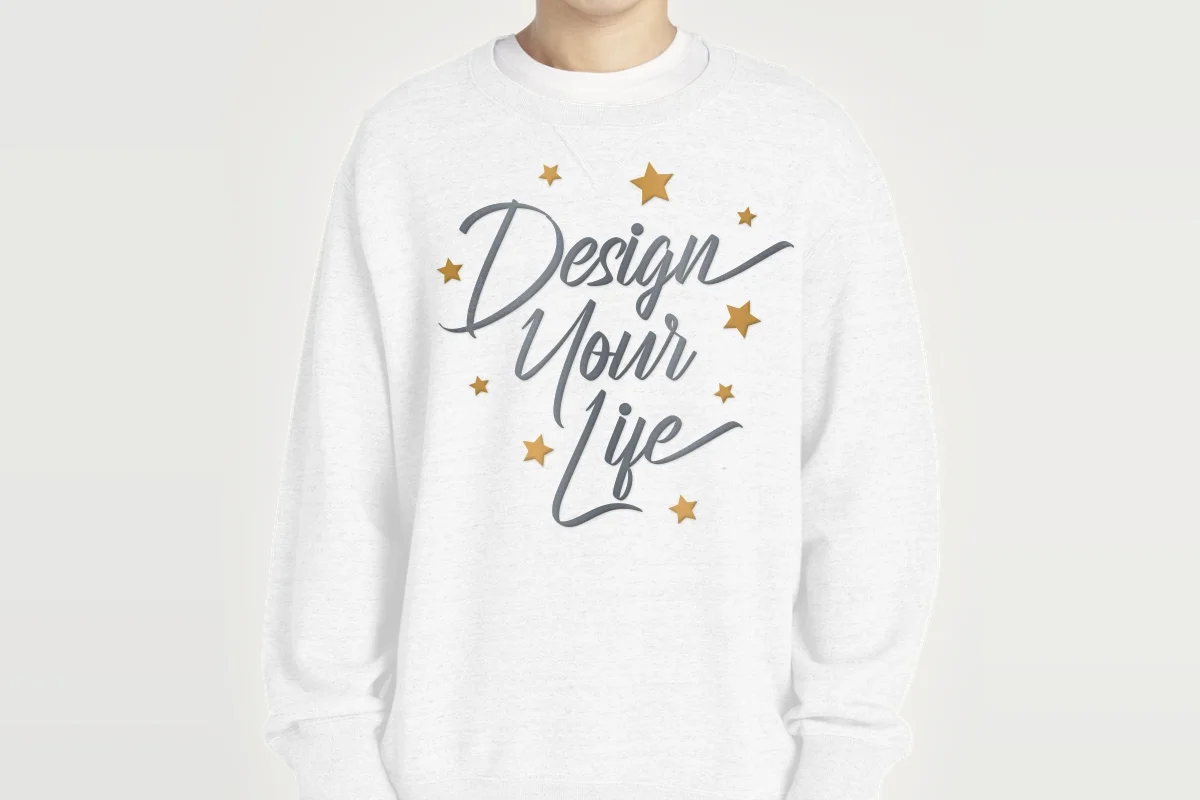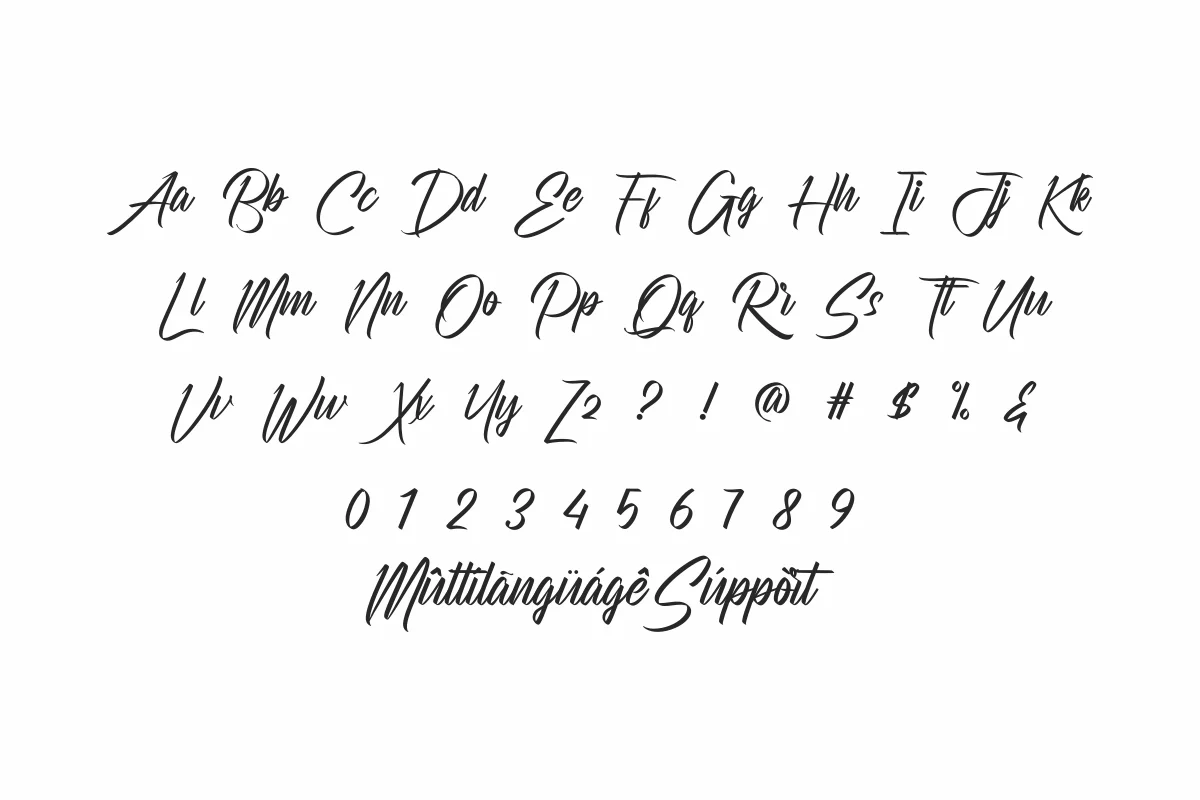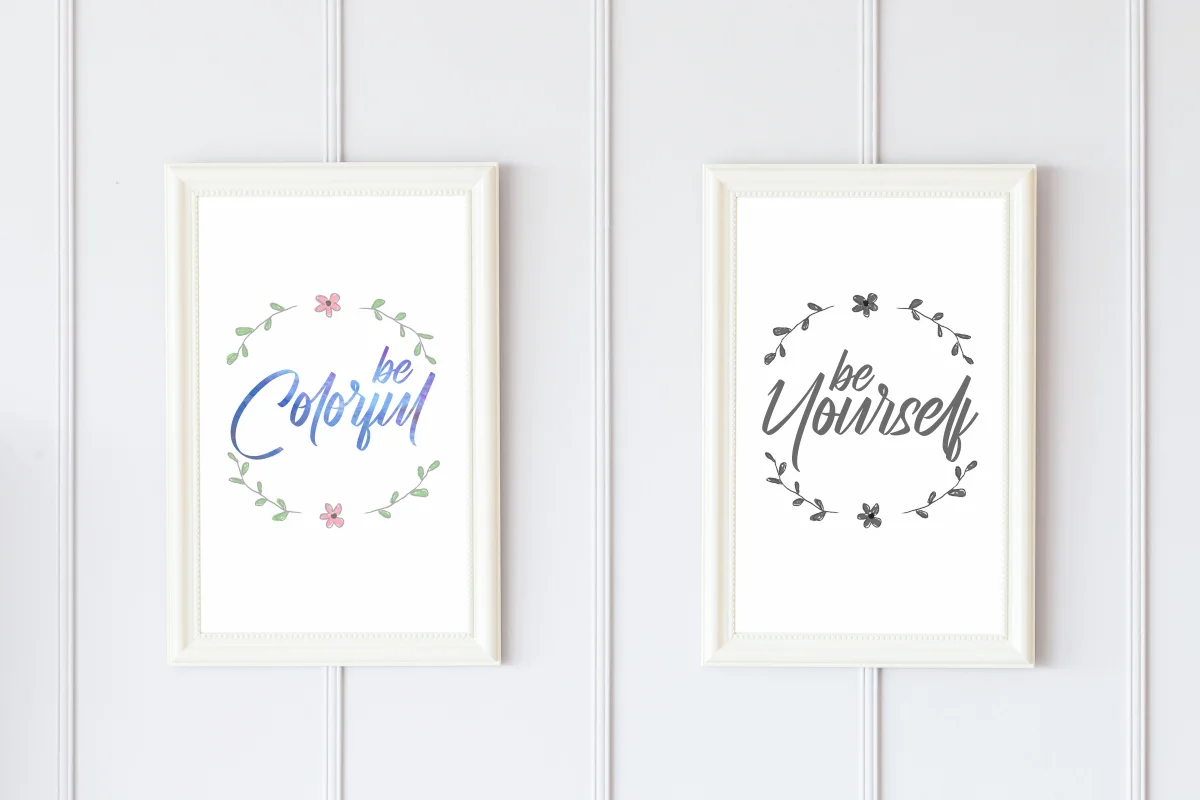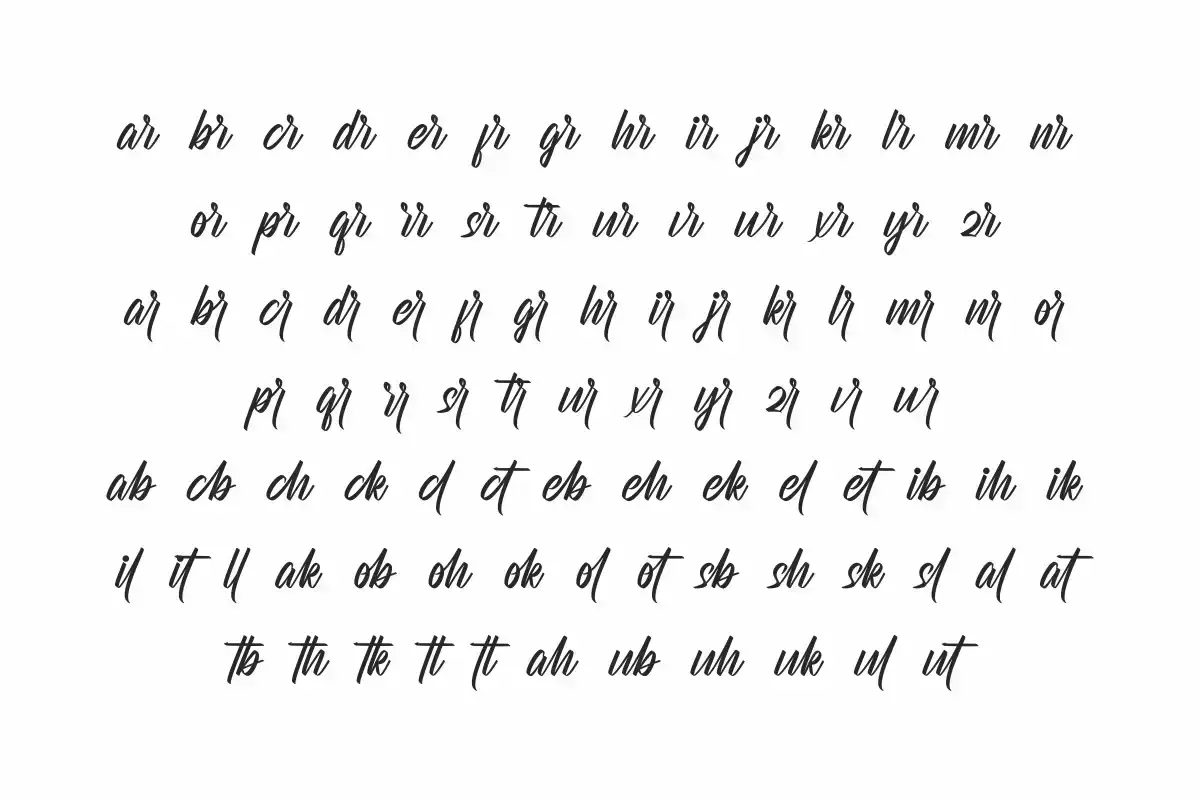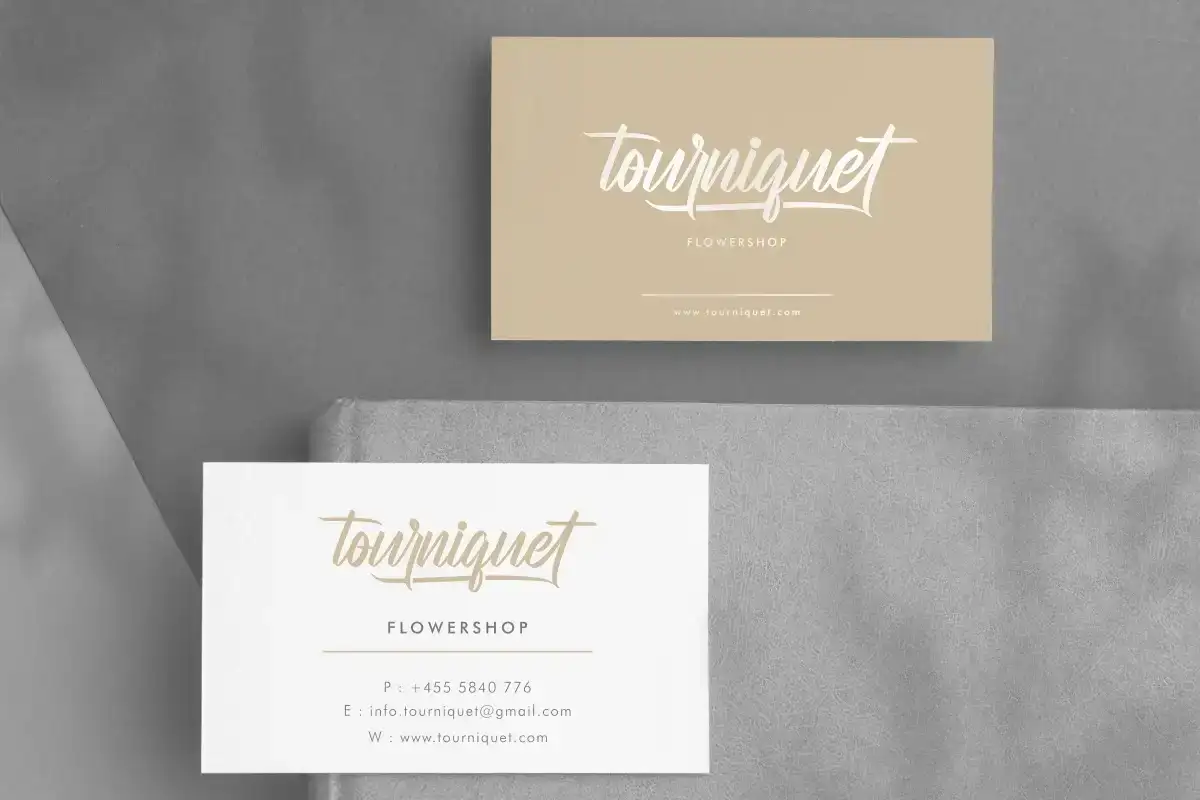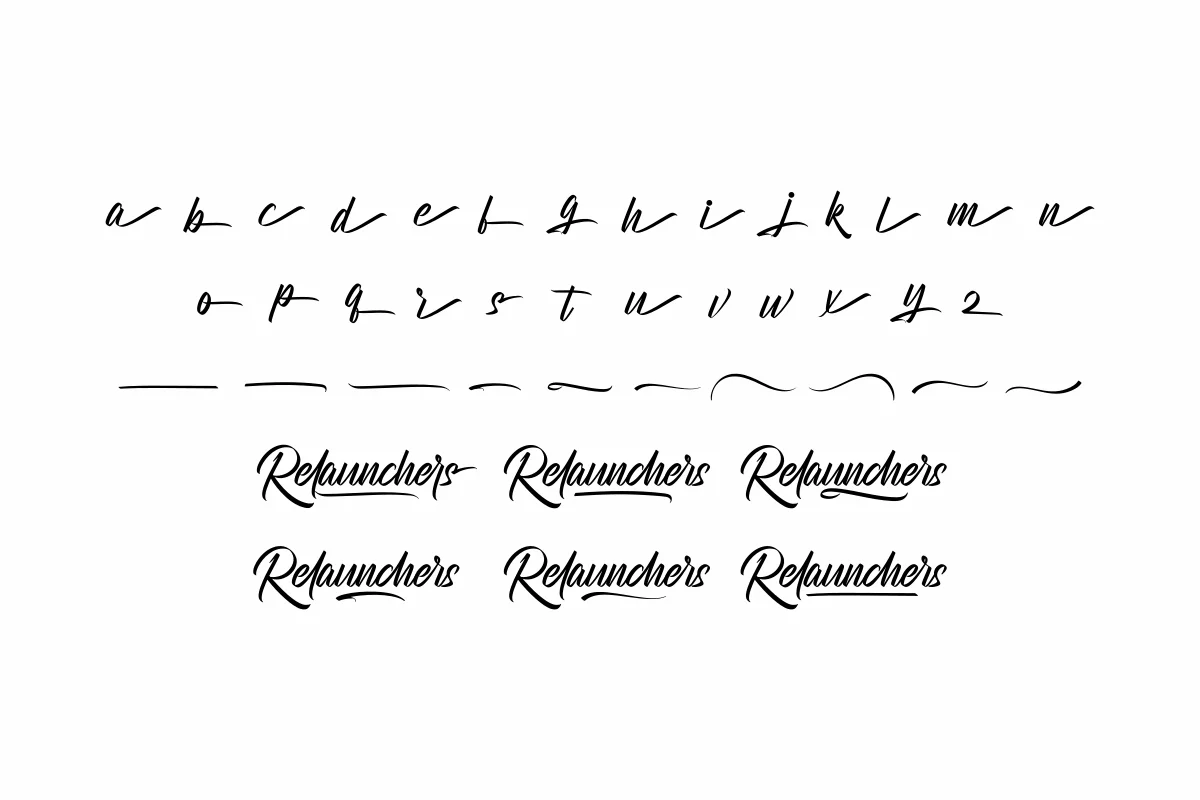
Relaunchers is a handmade brush calligraphy script font. Made in Indonesia 2020 by Our Font Designer : Widi and Sarah. On the package you will get :
Relaunchers font will be awesome for many projects (some require extended license) including : branding, logo, stationery, business card, signage, flyer, brochure etc. The theme style of the font is elegant, luxury, glamour, gold, vintage, stylish, sophisticated and classic brush style. The font will be match for this typeface: wedding, events, real estate, architect, law firm, florist, gardening, makeup artist, travel, hotel, musician etc